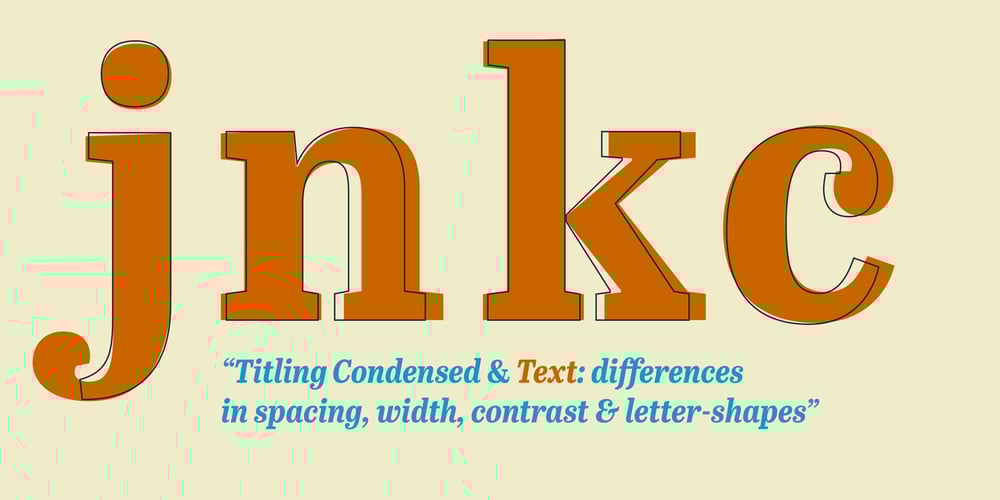
Abril Titling Font Family was designed by Veronika Burian, José Scaglione and published by TypeTogether. Abril Titling contains 32 styles and family package options. Abril is an extension of the Abril typographic system that was engineered as a response to a very specific requirement from the editorial design community: a low contrast typeface for head- lines. Given its broad range of styles though, Abril deserves to be considered a separate font family on its own. Based on the original text styles of Abril, the letter shapes are sturdy, very legible, and deliver a newsy and trustworthy feel. The accented editorial style of the Scotch Roman finds continuity in this new type family, but some of the details have been ironed out for improved performance in headline, both in print and on screen. The family is conceived as four series of different widths, with four weights in each series plus matching italics, a total of 32 fonts. This wide range of styles allows for setting titles at almost any size. The wider series are aimed for smaller point sizes while the con- densed weights can deliver a striking and cohesive appearance as front cover headlines. Abril was designed as a versatile tool for those graphic and web designers looking for a workhorse with high impact. It is also an excellent companion for the rest of the Abril type family: Abril Titling and Abril Narrow.